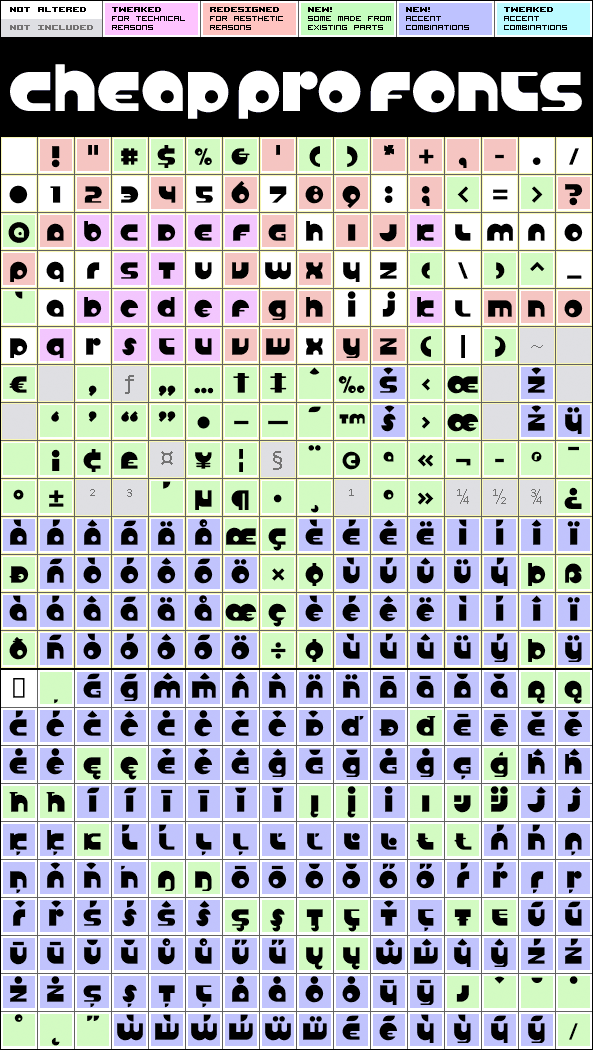
Anabolic Spheroid Pro
Anabolic Spheroid Pro by Levente Halmos
Levente Halmos
A funny looking font with circular shapes and cutouts - both hippie and futuristic at the same time. I have completely redrawn all the glyphs, and introduced a lot of alternate and new letterforms to make a little more variety between upper- and lowercase (the original layout with all the "old" letterforms can easily be accessed by using the OpenType menus "stylistic Alternates" or "Stylistic Set SS01" ;) All diacritics and accents are totally new, and made large - in the style of the original dotted i ;)
Anabolic Spheroid Pro is a professionally reworked font that contains an extended character set for setting text in 65 languages requiring more than the basic A-Z!